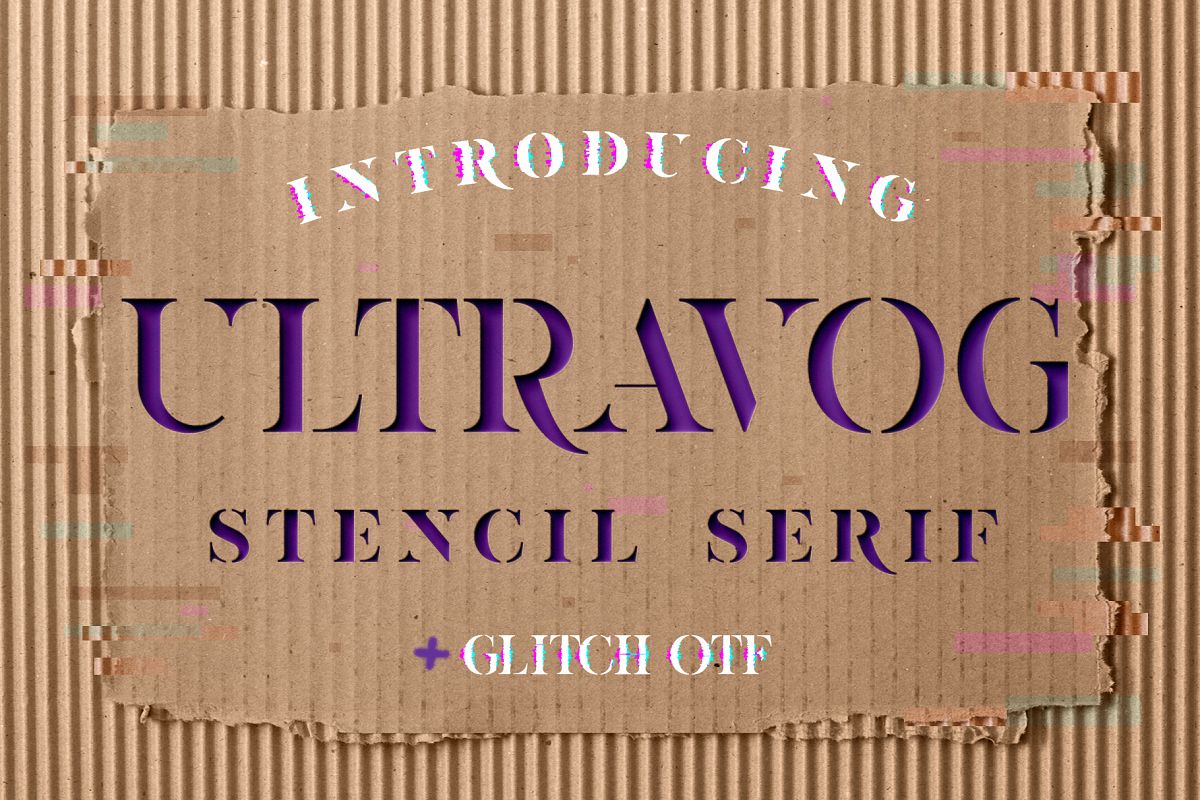
ULTRAVOG
ULTRAVOG is an elegant majuscule stencil serif font inspired by classic antique fonts.
It perfectly represents modern and vintage esthetics. Also both caps can be used as standalone fonts
The font is perfect for elegant invitation cards, beauty and fashion package design,
very suitable for books design, magazines typography, packaging, branding and more other creative project